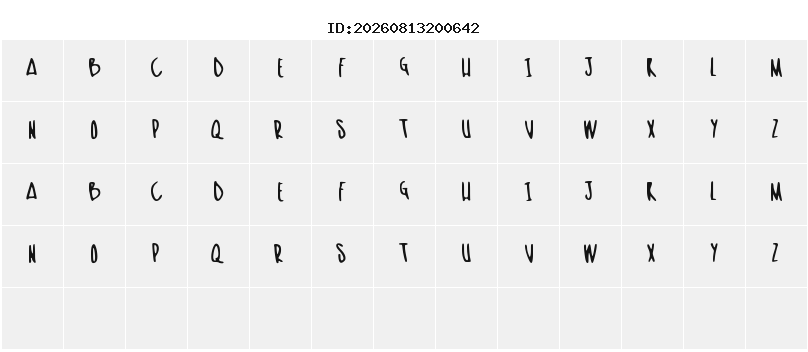
• Font Name: skinish
• Font ID: FontForge 2.0 : skinish : 30-10-2012
• Full Font Name: skinish
• PostScript Name: skinish
• Character Count: 140
About skinish.ttf
skinish.ttf is a modern, elegant sans-serif font designed for ultimate readability and visual harmony. Perfect for branding, headlines, web design, and print materials.